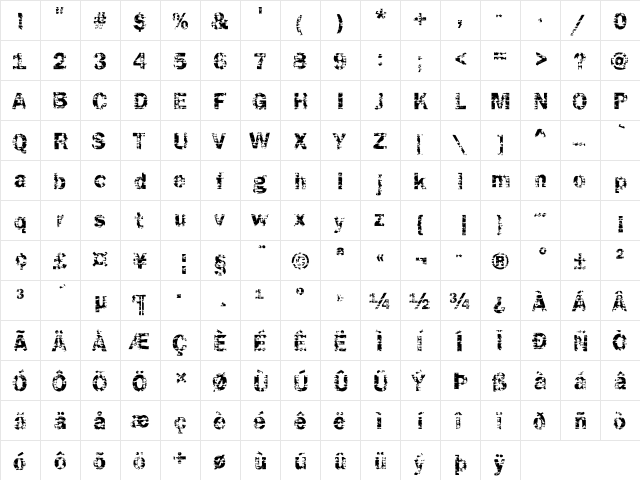
DTCFunkyM04 Regular
Design Context for DTCFunkyM04 Typeface
DTCFunkyM04 has an approachable, lighthearted character — its loose, expressive forms are well-suited to children's content, casual branding, and fun-first design.
Font Pairing: Pairs well with a rounded or humanist sans for body copy, maintaining the friendly tone without relying on DTCFunkyM04 to carry extended reading.
Pro Tip: Use DTCFunkyM04 at larger display sizes where its expressive character can land. Pair with a clean, simple sans for body copy to maintain readability.